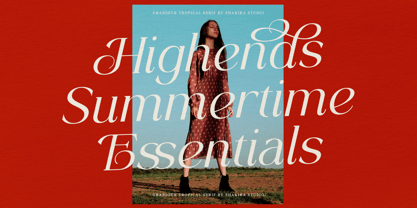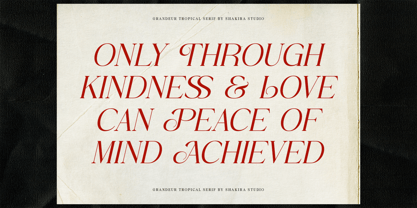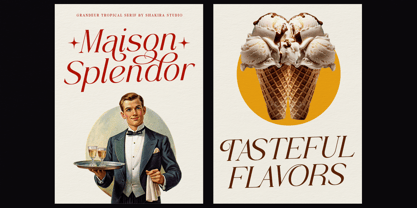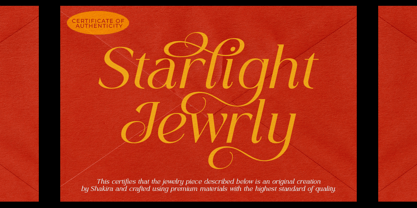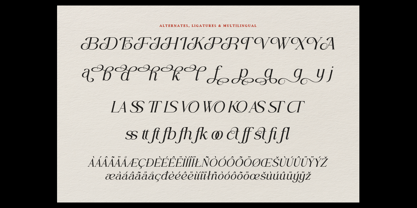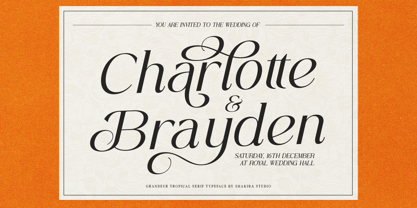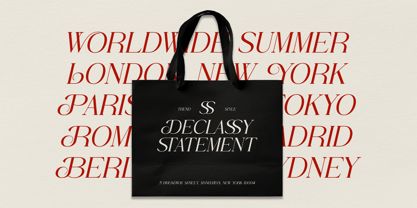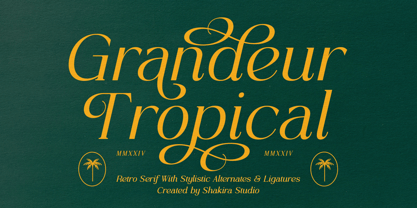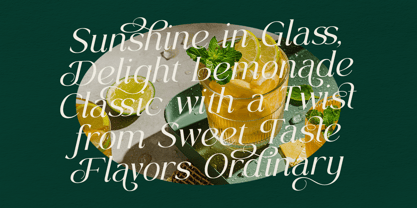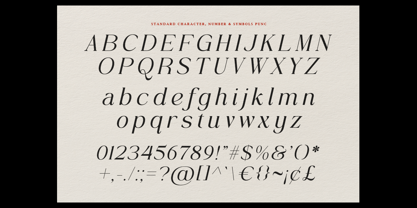
Grandeur Tropical
by Shakira Studio
The Grandeur Tropical Font Family was designed by Idhham Cholid Rikzano Yahya and published by Shakira Studio. Grandeur Tropical contains 1 styles. More about this family
Grandeur Tropical – Retro Serif Font
Grandeur Tropical is a luxurious retro serif font with a bold and stylish character, perfect for creating stunning and memorable designs. Featuring elegant alternates and ligatures, this font offers flexibility and ease of use, allowing designers to customize layouts effortlessly.
Ideal for posters, magazines, and print designs, Grandeur Tropical brings a touch of sophistication and cool retro vibes to every project. Whether you’re crafting editorial layouts or standout branding, this typeface ensures an elevated and polished result.
• All Multilingual symbol
• Opentype features ( ligature, alternate )
Designers: Idhham Cholid Rikzano Yahya
Foundry: Shakira Studio